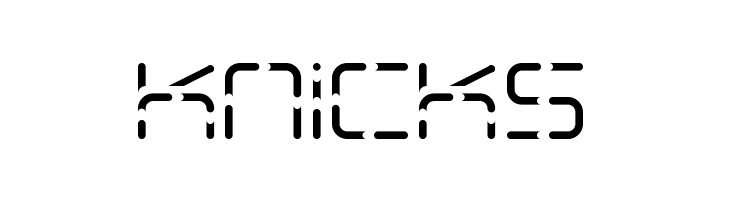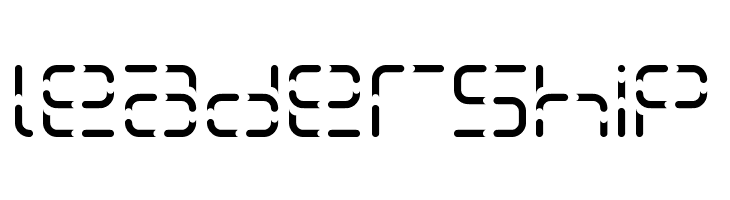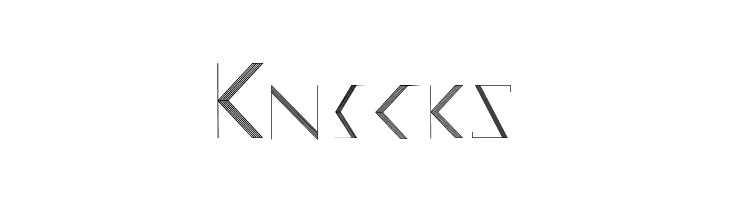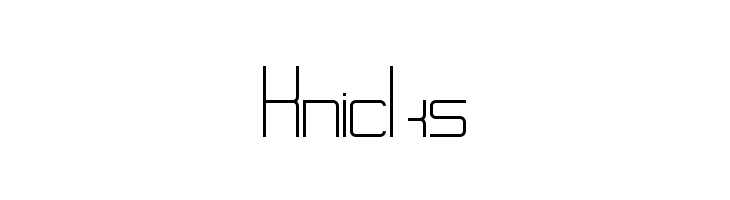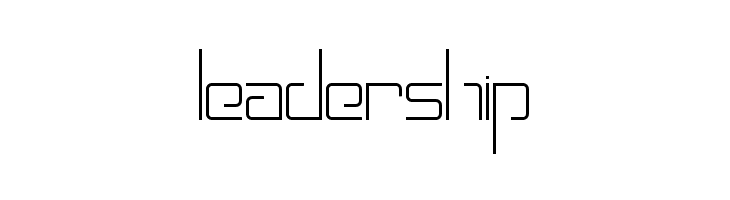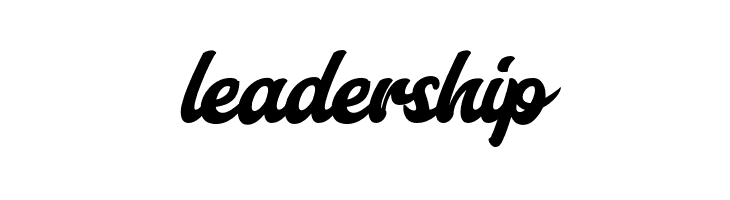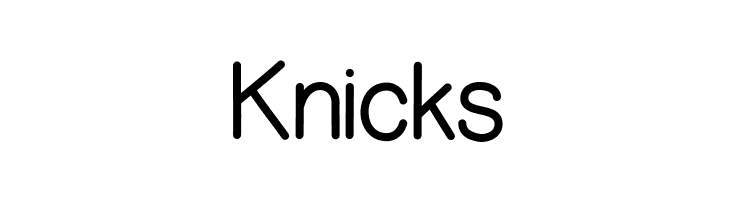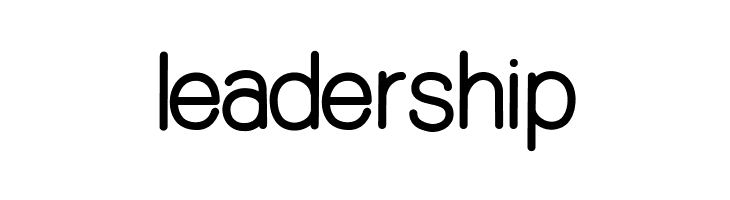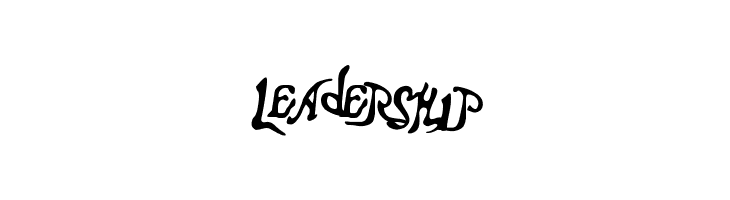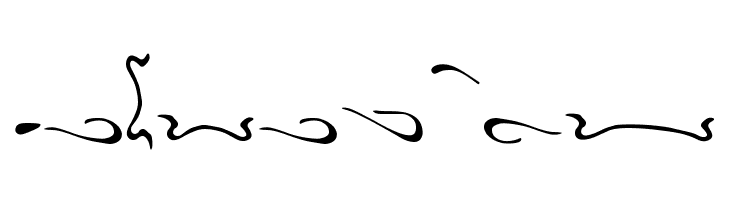
• Aegis Italic
A bold, italicized font with sharp, angular features.
• Aegis Leftalic
A bold, left-leaning font with sharp, angular edges and a geometric style.
• Aegris Outline Regular
• Aegris Stencil
• Aegyohome Regular
( Fonts by Aegyo.home )
A playful, handwritten font with a friendly and informal style.
• Aegyohomelight Regular
( Fonts by Aegyo.home )
A playful, handwritten font with smooth, rounded strokes and a casual feel.
• Aegyptus Bold
A bold, modern sans-serif font with clean lines and balanced spacing.
• Aeiou Regular
A playful, handwritten font with rounded, irregular letterforms.
• aelfa
• Aella FREE
An elegant script font with flowing, interconnected letters and ornate uppercase characters.
• AellaFREE
An elegant script font with flowing, interconnected letters and a classic calligraphic style.
• Aenima
• AENOS Italic
( Fonts by productype.com )
A bold, rounded, and playful italic font with a modern aesthetic.
• AENOS Regular
( Fonts by productype.com )
A bold, rounded font with a strong and friendly appearance.
• Aerial
A bold, geometric font with a futuristic and technical design.
• aerial demented
A fragmented, distressed font with a bold and chaotic design.
• aerial demented
A bold, fragmented font with a chaotic and edgy style.
• Aerial_Demo
A modern, rounded sans-serif font with excellent readability.